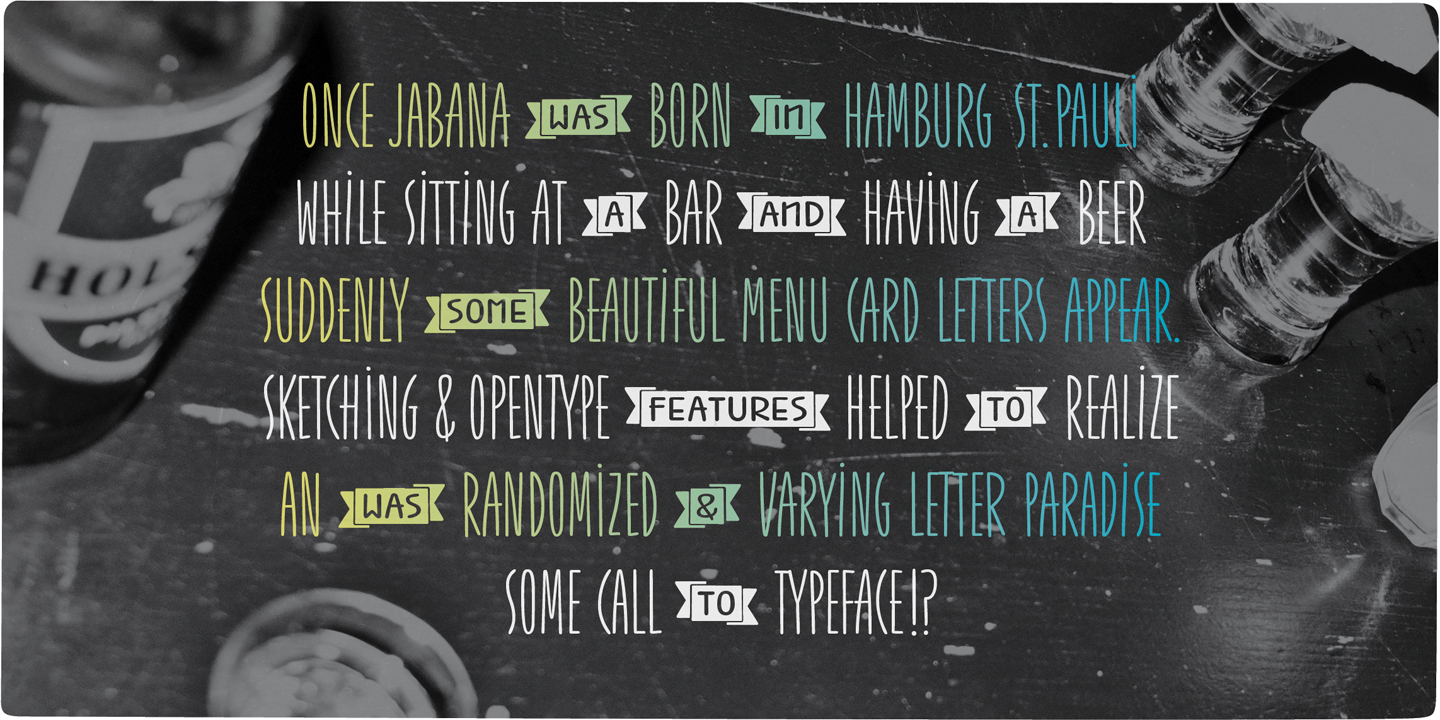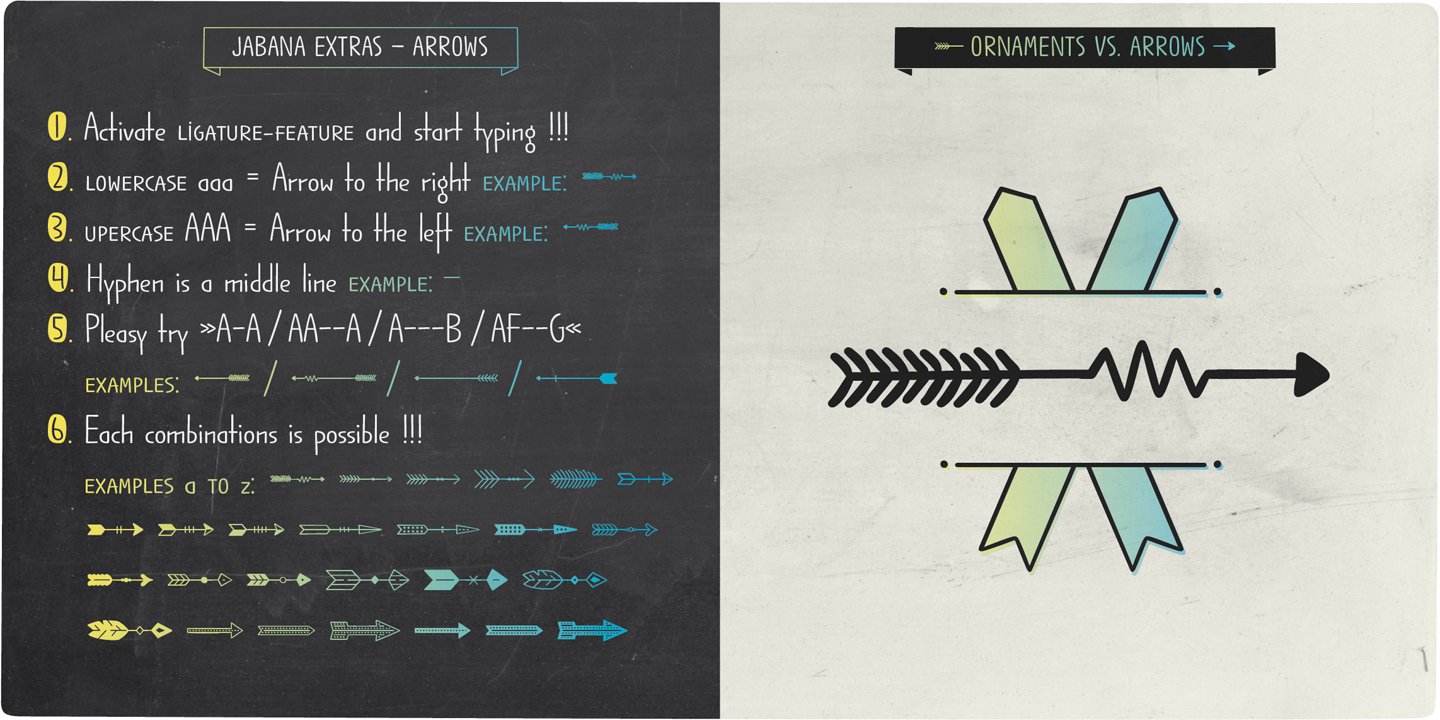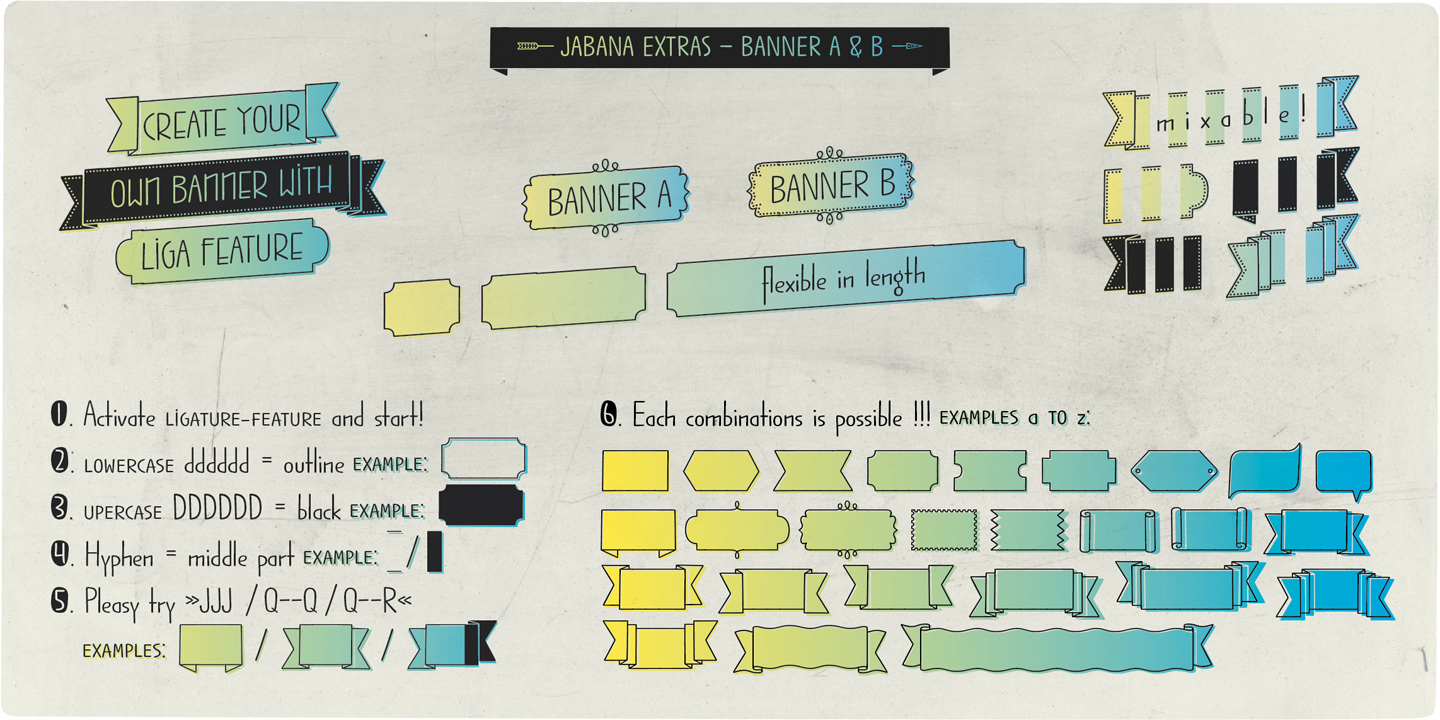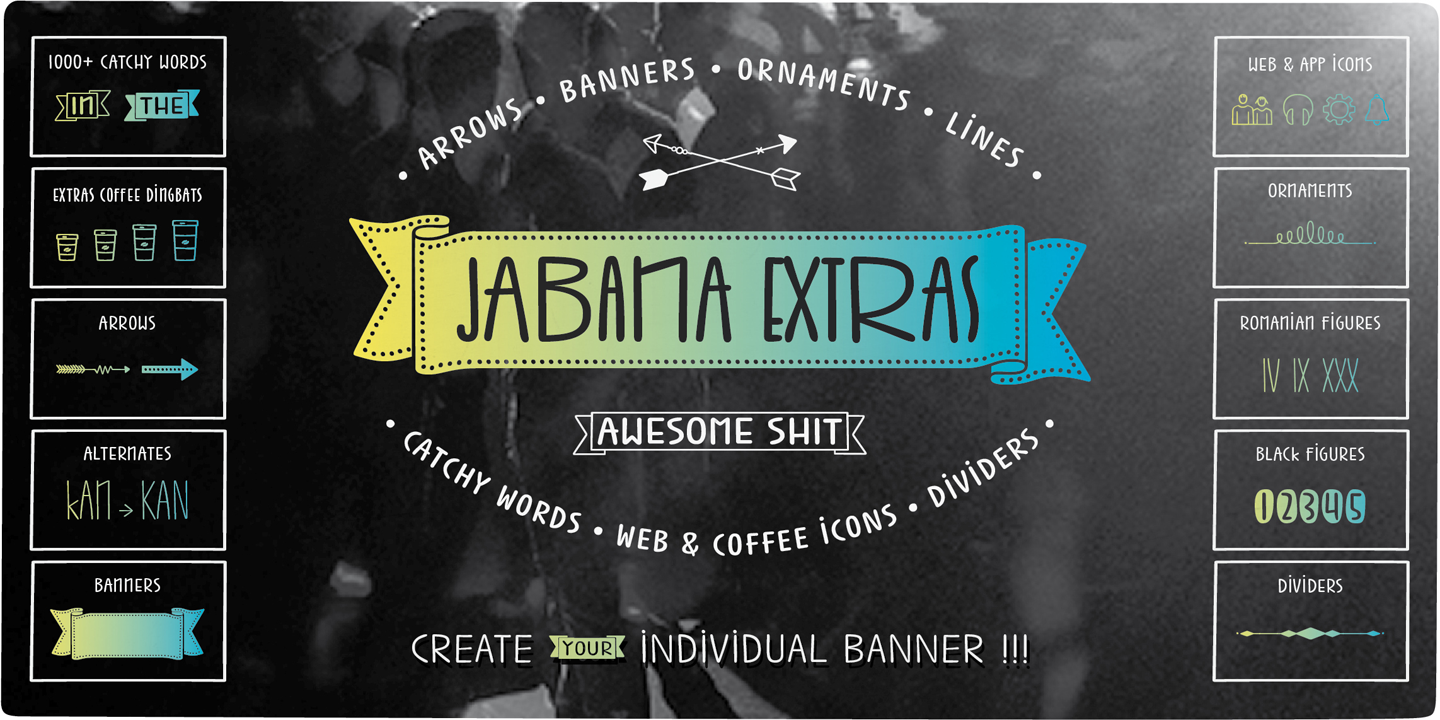
Nils Types is the result of one talented young designer putting a business behind his life-long passion for lettering and graffiti. In 2013 Nils Thomsen decided to focus on his love of drawing letters and conceptualizing font families and start his own foundry.
The first font released from the Hamburg, Germany-based studio was Jabana, a handmade marker-based blackboard font. Since then, his spurless sans serif typeface, Conto, whose special set of ligatures proves perfect for lettering projects and logo designs, has been a bestseller.
Nils says that concept and context are two of the most important features of his typefaces. “It is not just about good looking letter shapes, even more important is how the fonts can be used.”